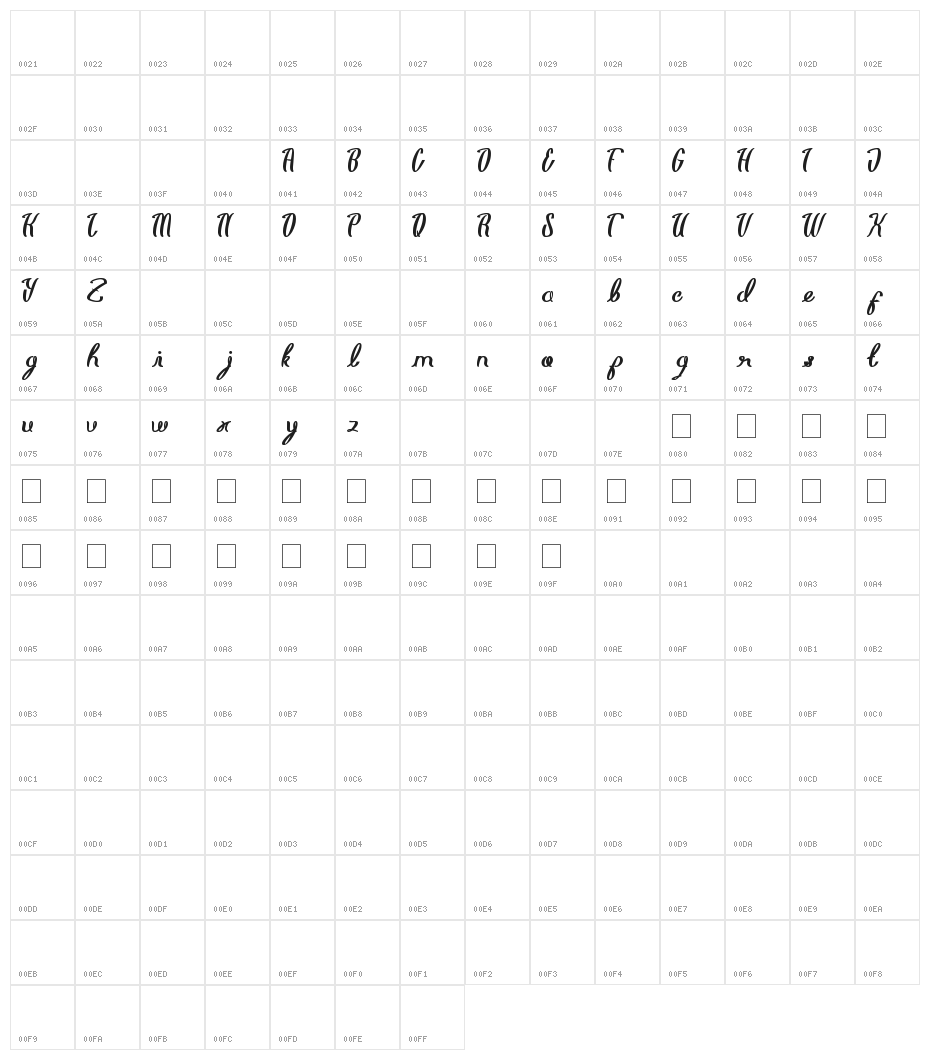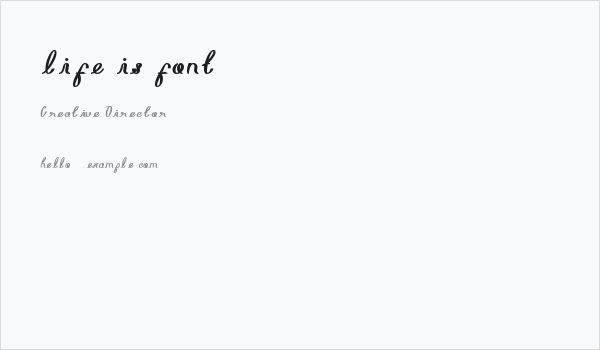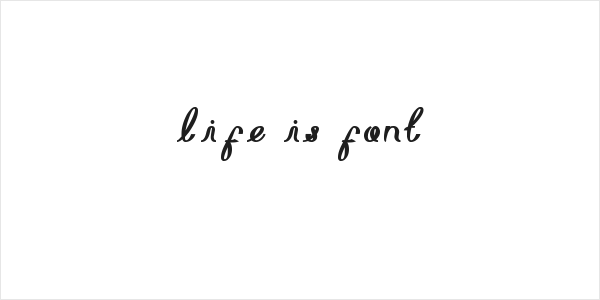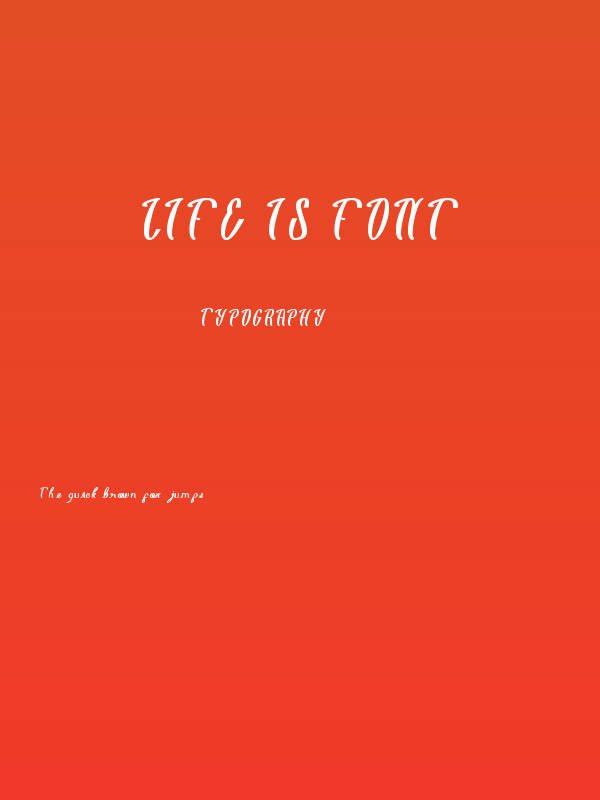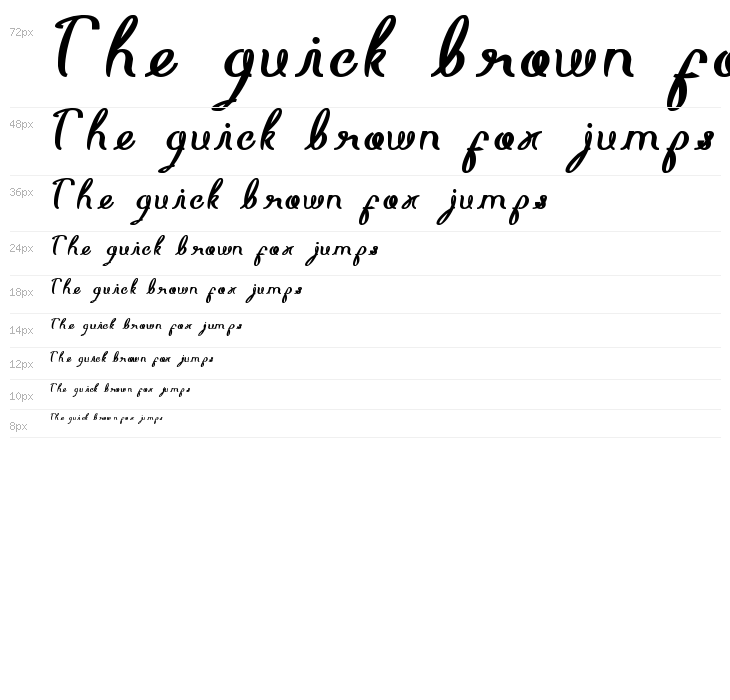
life is font Font
life is font Description
This font exhibits a lively and flowing script style, characterized by its elegant and cursive letterforms. The uppercase letters are bold and sweeping, with a distinct flair that adds a sense of movement and dynamism. The lowercase letters maintain a consistent fluidity, with smooth curves and a slightly slanted orientation, enhancing the handwritten feel. The numerals and special characters are designed to complement the overall style, ensuring a cohesive and harmonious appearance. This font's playful yet sophisticated nature makes it suitable for a variety of creative applications.
| Proposed Projects | Ideal for wedding invitations, greeting cards, branding projects, and any design requiring a personal touch. |